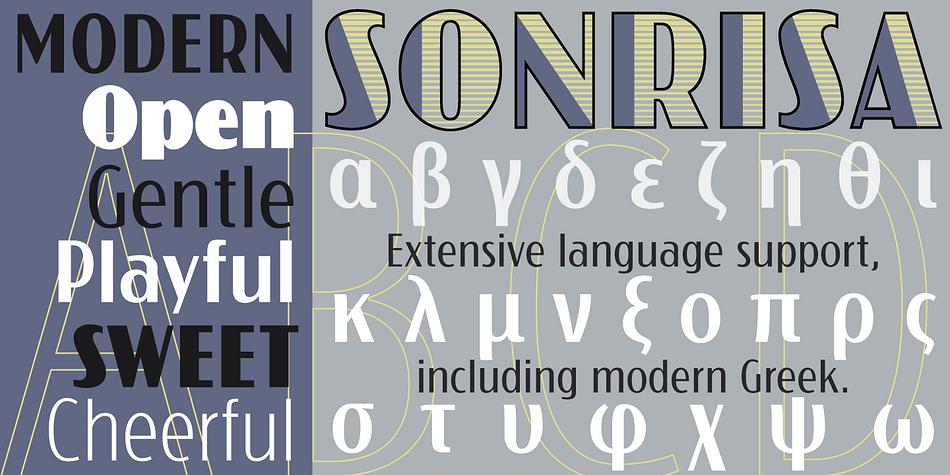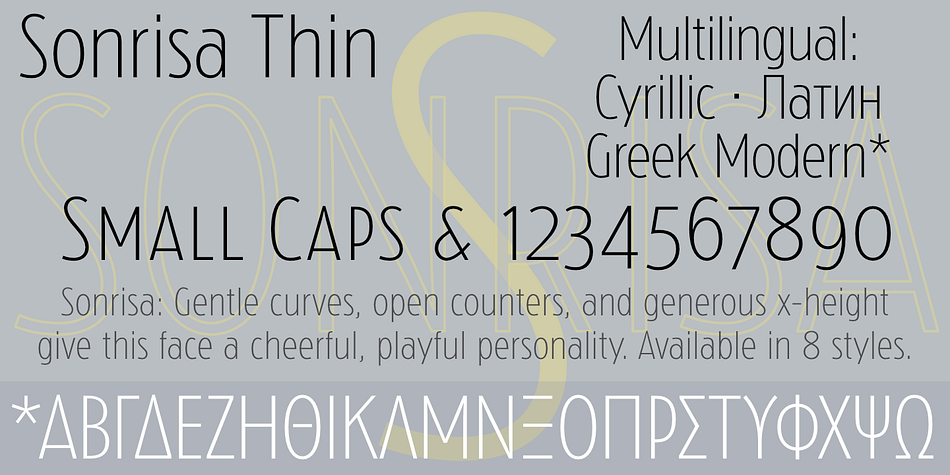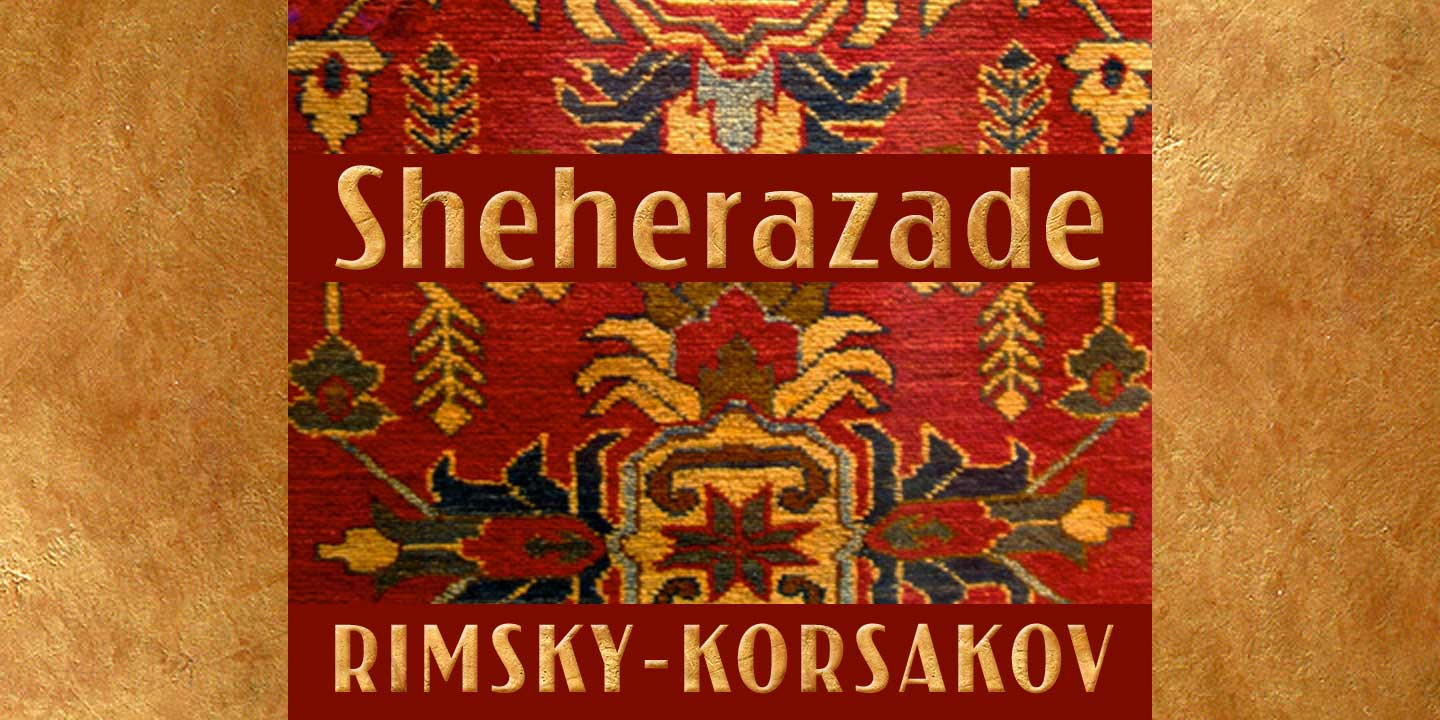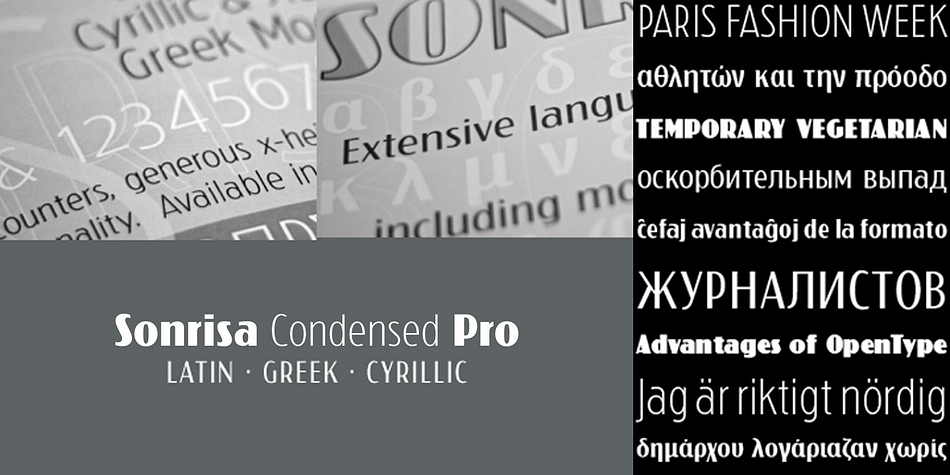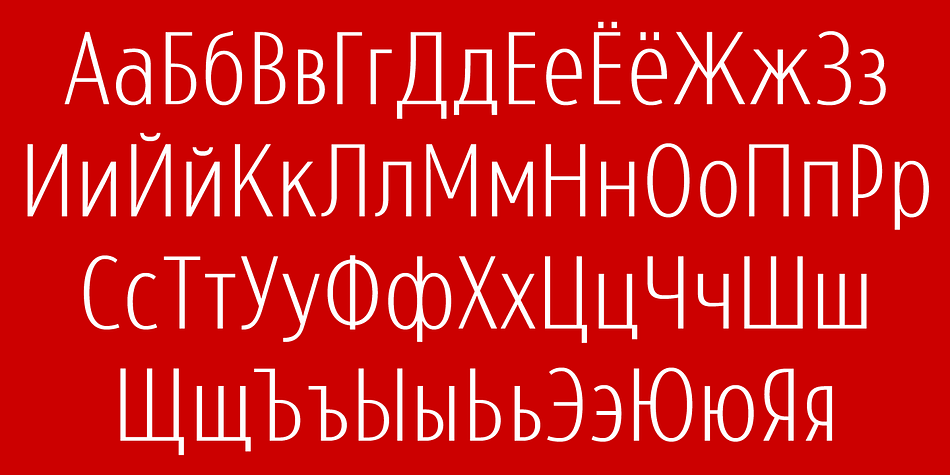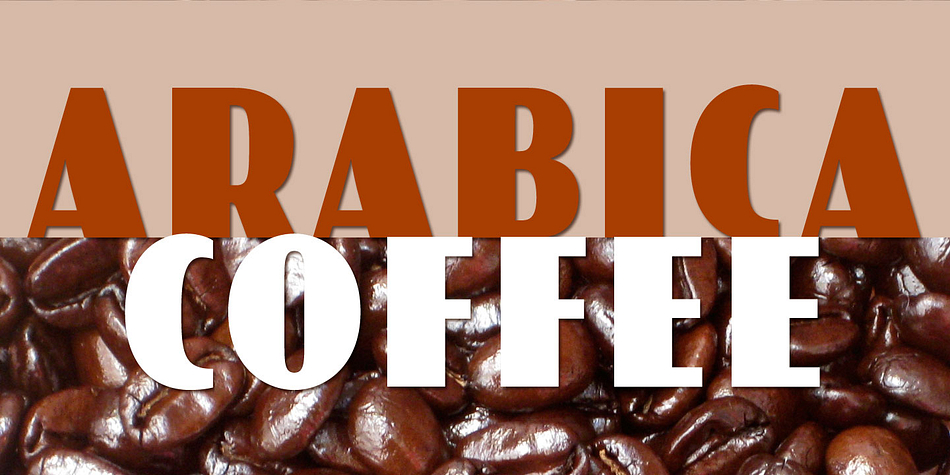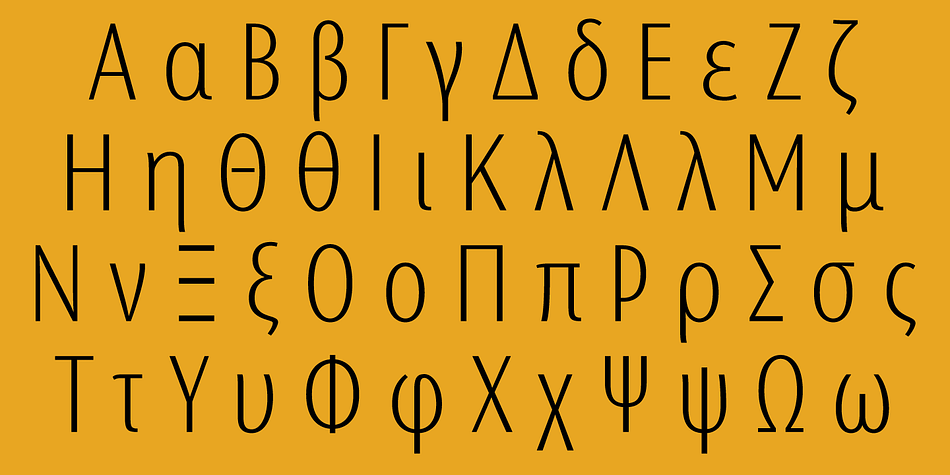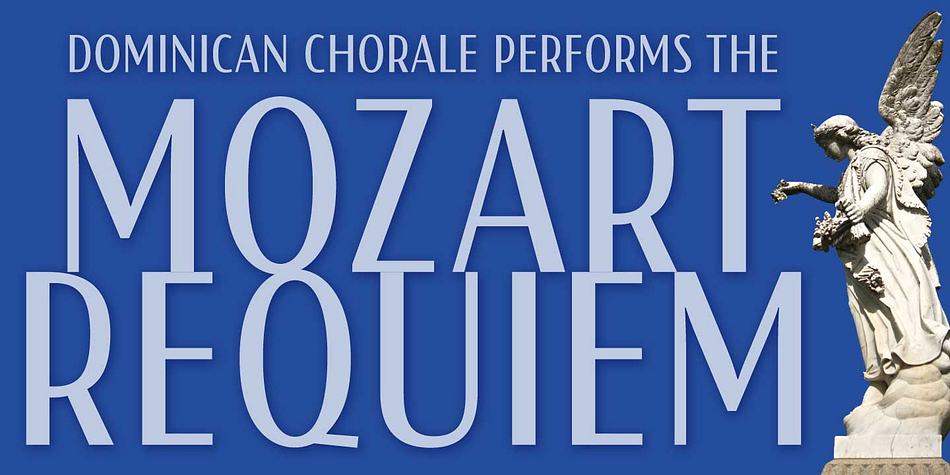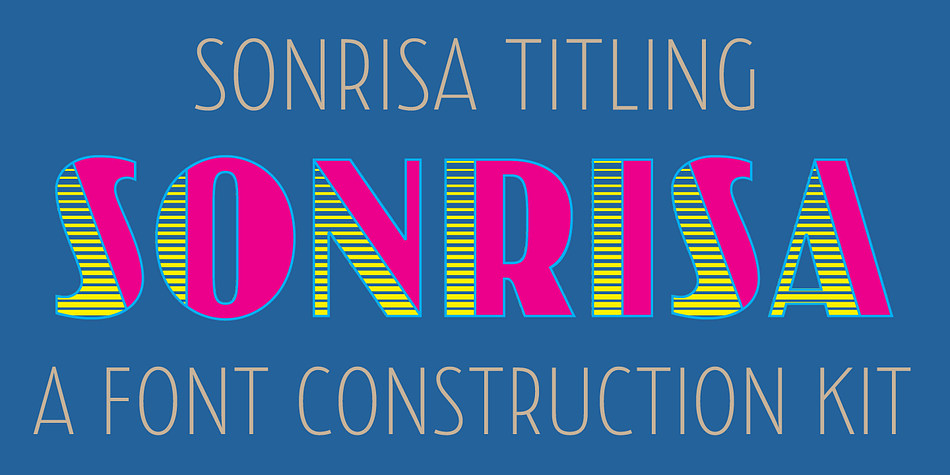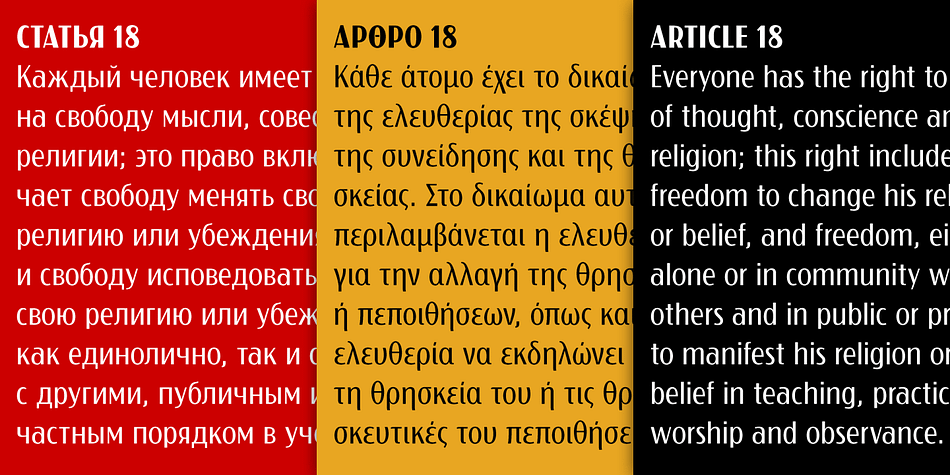
Sonrisa is a sans serif, display sans and art deco font family. This typeface has eight styles and was published by CastleType.
Sonrisa™ is an 8-font CastleType Original that evolved from my sketches of the skeletal structure of Jakob Erbar’s Koloss. Gentle curves, open counters, and generous x-height give this face a cheerful, playful personality. Supports most languages that use the Latin, Greek (modern), or Cyrillic alphabets; true small caps and oldstyle numerals.